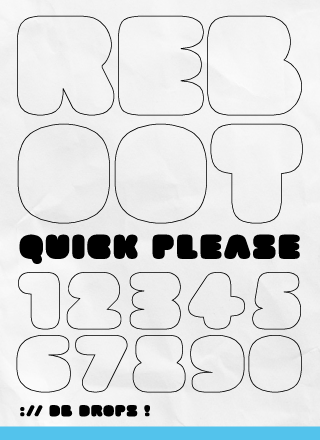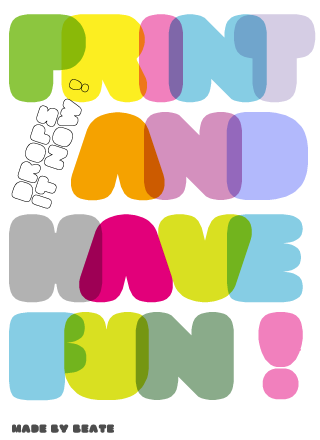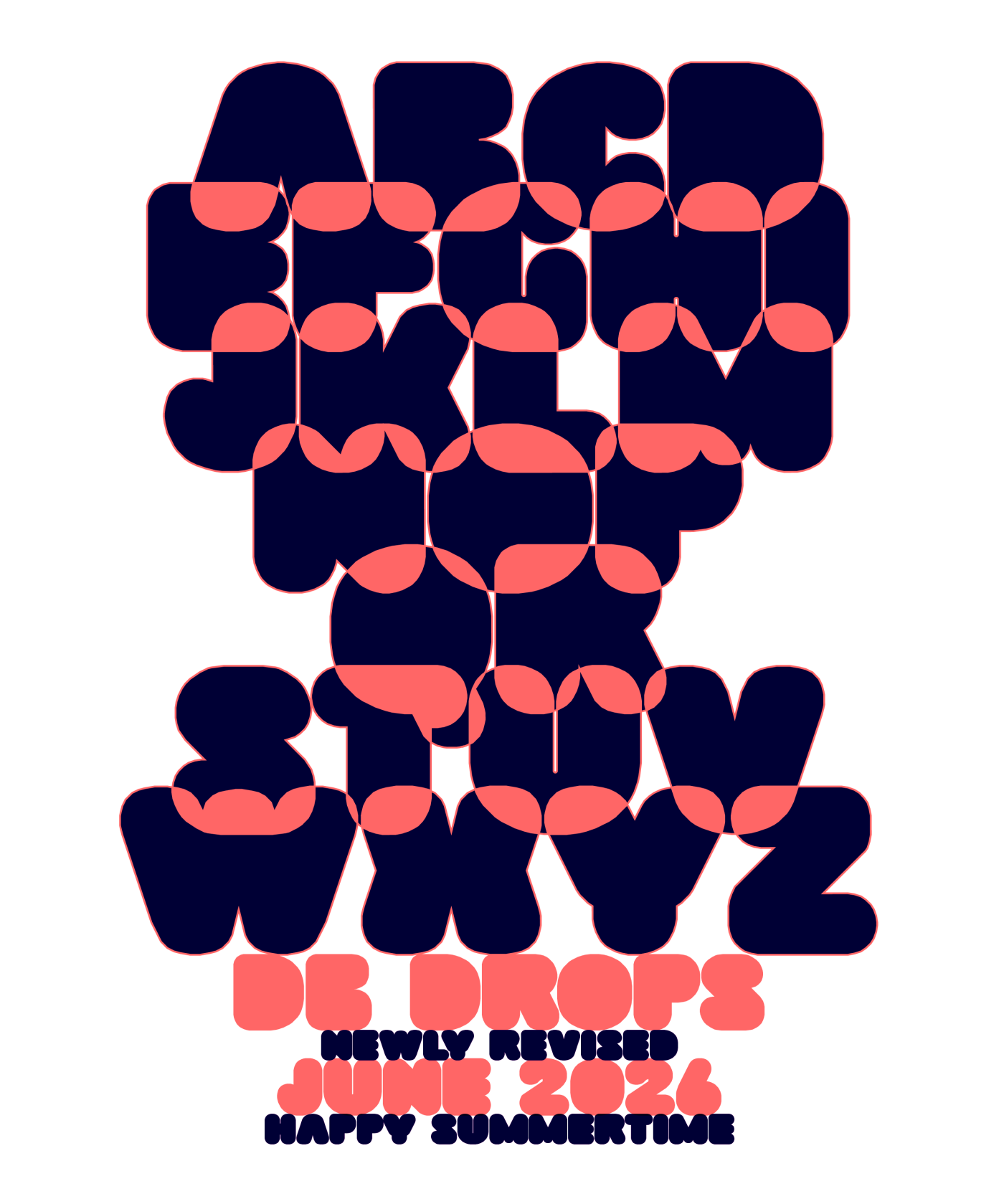
Really nice. I like the samples, doesn't look like it was made in FS!
Veeeeery nice sample, compañero!
I think you could trick Fontshop.com with this and pass from the featured fontstruction section to the "Some font you just can't fontstruct, try a non-modular font" section!
I like the "candy" feeling... But, as many of the very good "counterless" vector fonts (they are often a bit similar), it has some difficulties to find this je-ne-sais-quoi making a font really unique... even if it can give pleasure, because the "genre" is very seductive (and appreciated by many graphic designers)
Wonderful! Again. It seems that everything you do on FS is good.
Oh, cool... Very smooth and cute :) Great curves! And nice sample too!
Rotund shapes, voluptuous curves reminiscent of Botero's figures. Beautiful. 10/10
Hidden away in there is Helvetica, somehow :)
Excellent.
@Frodo 7 and deminocs – I think Helvetica is a bit stronger = )
What a gorgeous design - I almost want to eat that trichromatic sample. 10/10
Fabulous color sample, outline works quite well too!
I love this, very clean and fun at the same time. Thanks for inspiring me.
Your letters are very pretty. The curves are incredibly smooth.